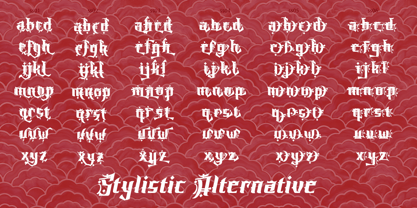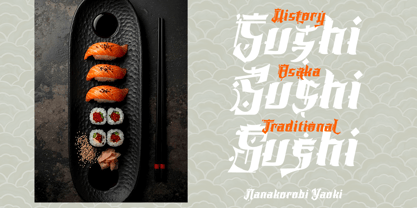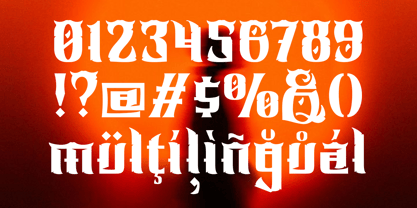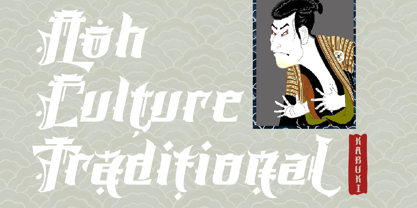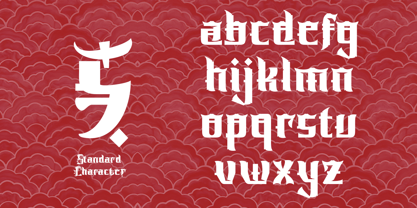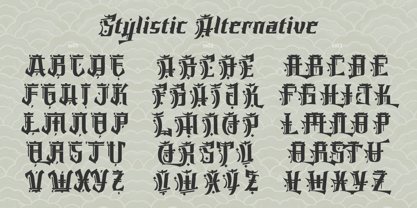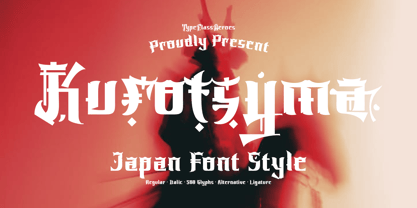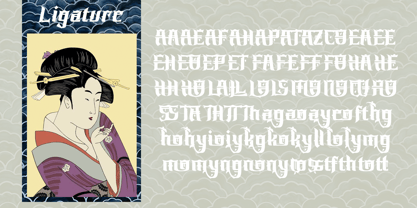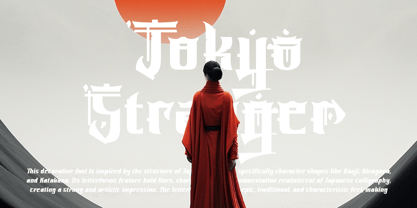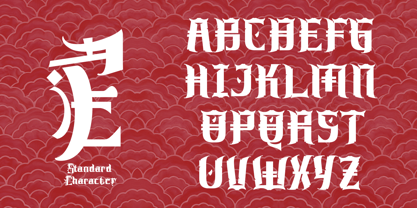
Kurotsyma
by TypeClassHeroes
The Kurotsyma Font Family was designed by Suandana ipandemade and published by TypeClassHeroes. Kurotsyma contains 2 styles and family package options. More about this family
Introducing Kurotsyma, this decorative font is inspired by the structure of Japanese writing, specifically character shapes like Kanji, Hiragana, and Katakana. Its letterforms feature bold lines, sharp angles, and ornamentation reminiscent of Japanese calligraphy, creating a strong and artistic impression. The letterforms convey an epic, traditional, and characteristic feel, making this font suitable for use in Japanese or anime-themed design titles, Japanese culture posters, logos or game titles with a samurai/Japanese fantasy theme, and merchandise designs such posters.
Designers: Suandana ipandemade
Foundry: TypeClassHeroes